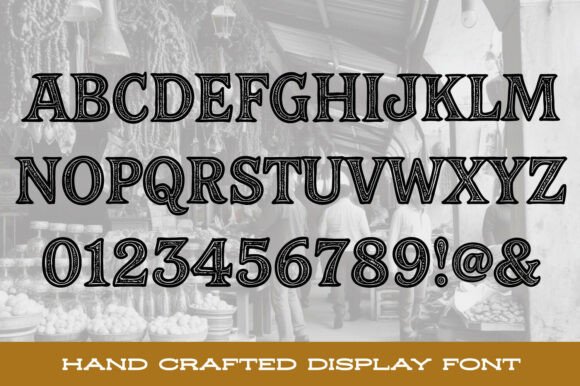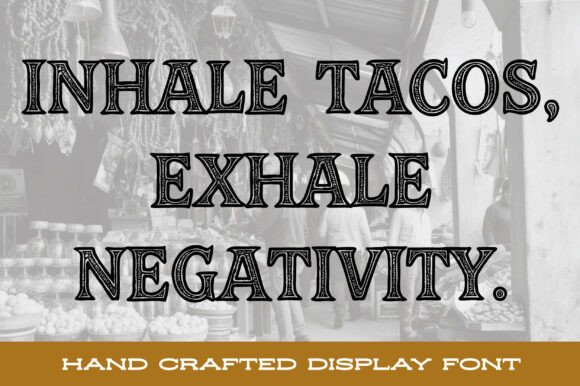
Introduction to Letrado Font
Letrado typeface is a bold, hand-crafted serif font that blends old-world elegance with rustic Latin charm.
Each letter features an inset carving effect, giving the impression of being engraved into wood or stone The edges are subtly rough and irregular, reflecting the imperfections of traditional hand-cut type.